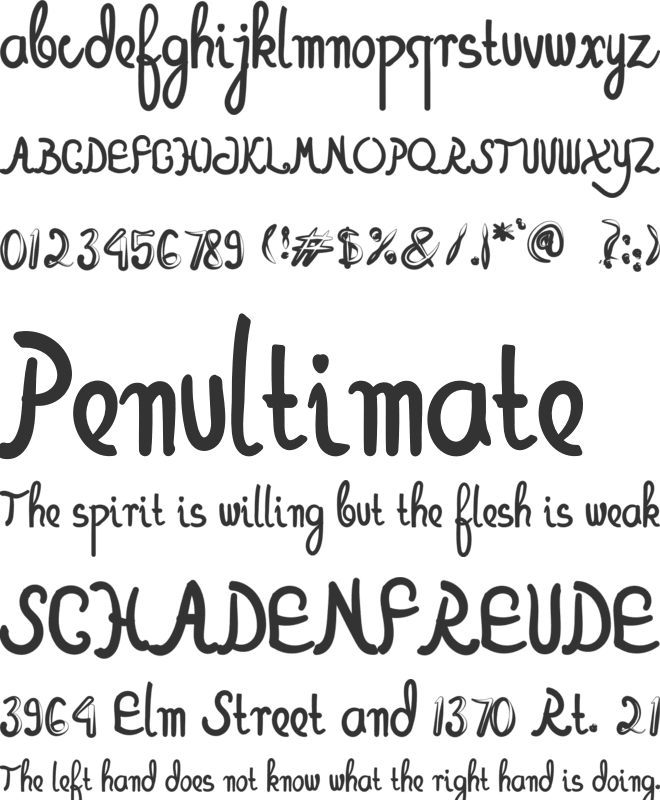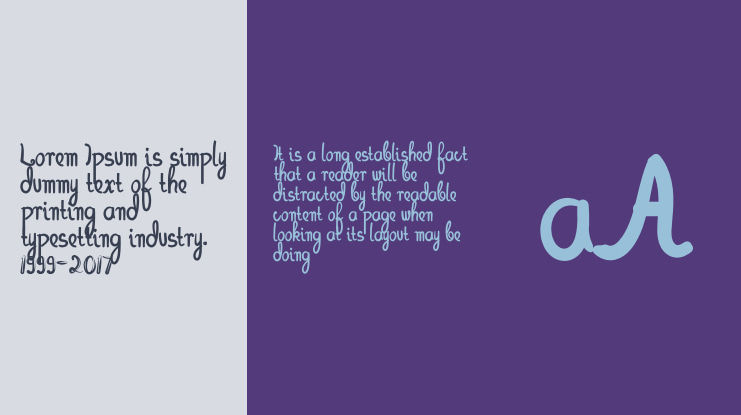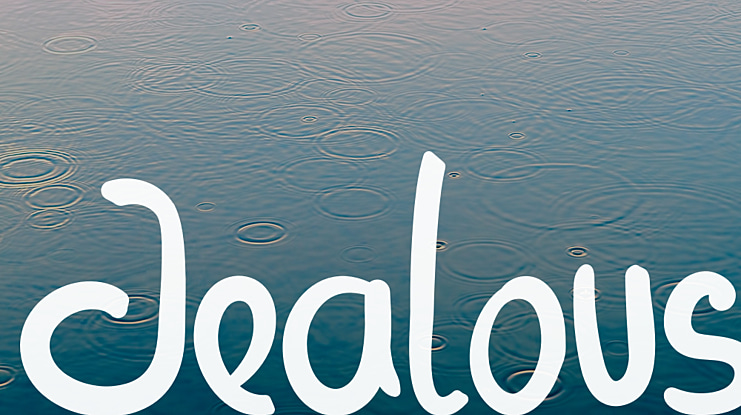
Jealous Font
Jealous is a cute, dainty and friendly handwritten font. It looks beautiful on a variety of designs requiring a personalized style, such as wedding invitations, thank you cards, weddings, greeting cards, logos and so on.